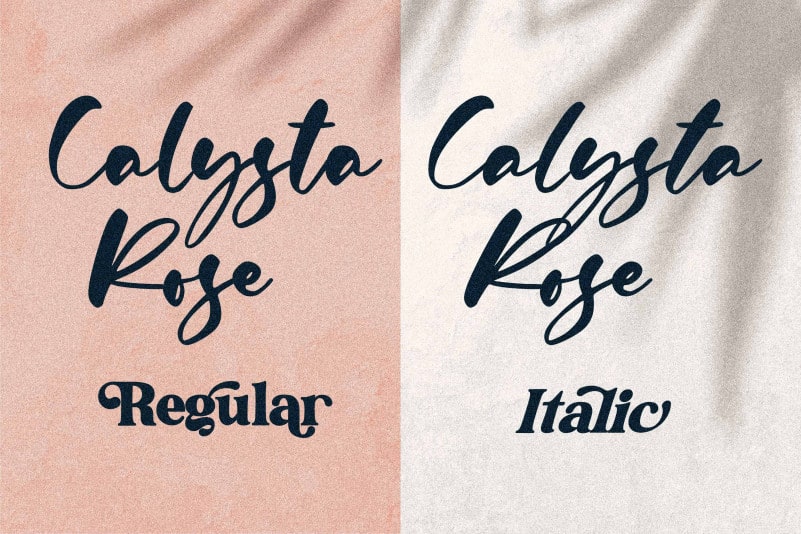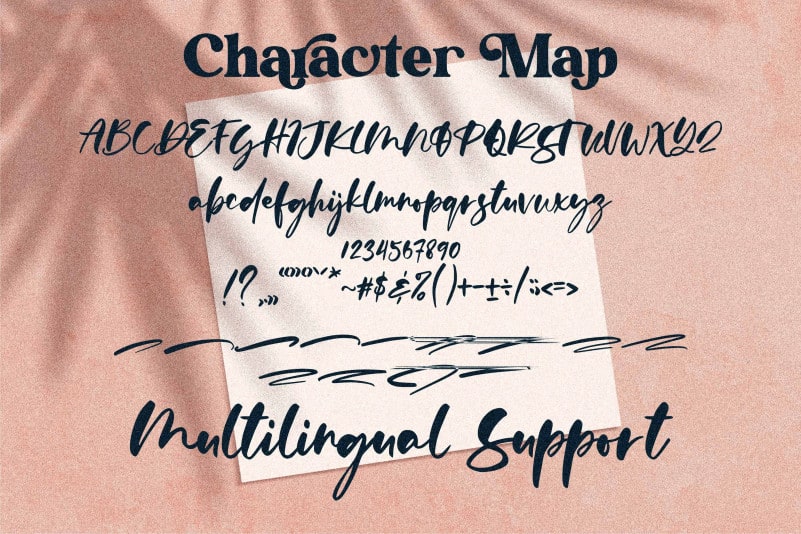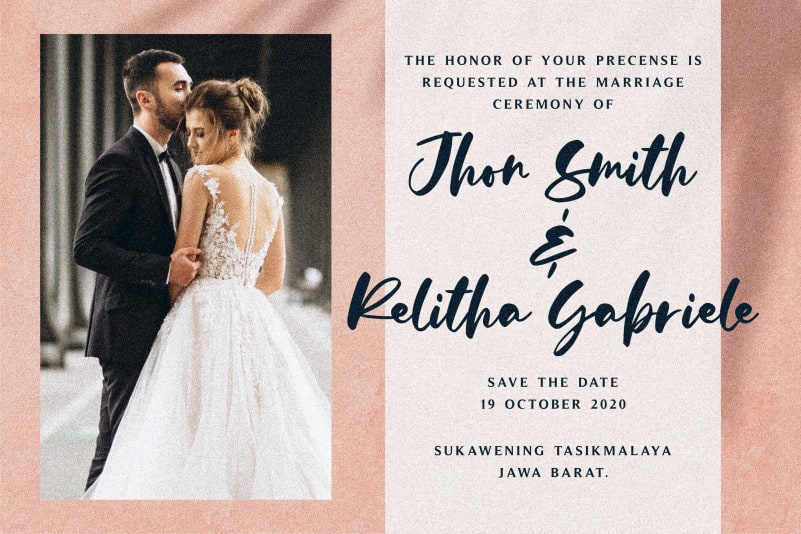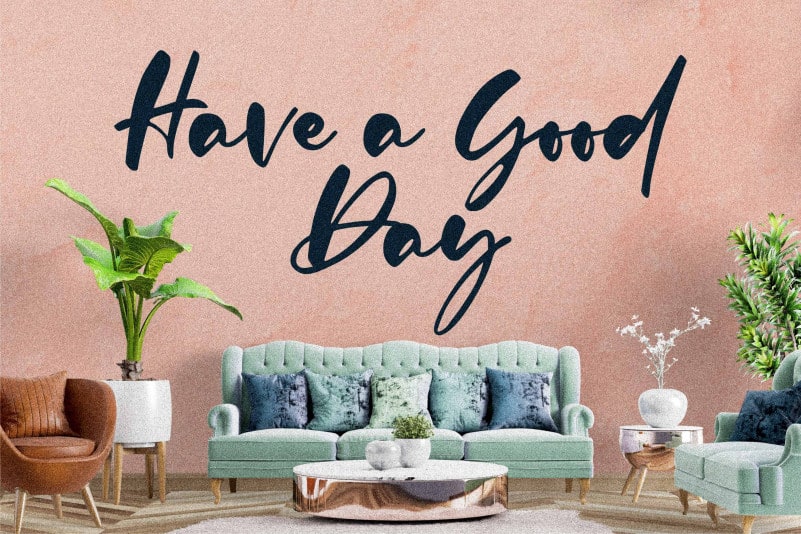
Calysta Rose Script Font
Calysta Rose Script Font feels equally charming and elegant. It looks stunning on wedding invitations, thank you cards, quotes, greeting cards, logos, business cards and every other design which needs a handwritten touch.
Calysta Rose Script Font is PUA encoded which means you can access all of the glyphs and swashes with ease!